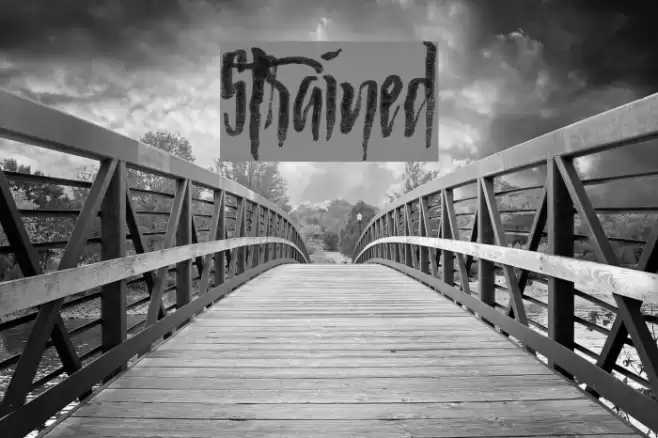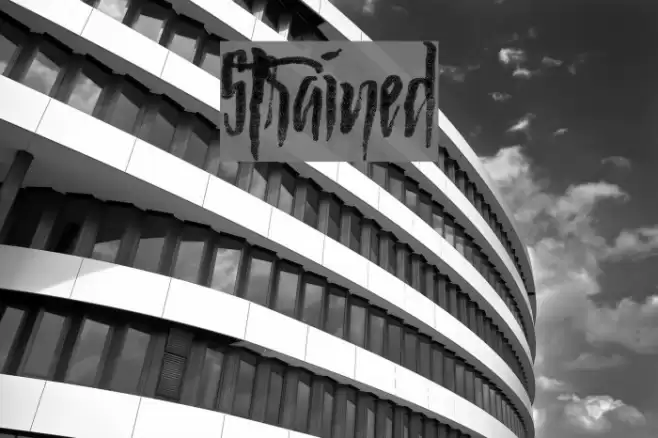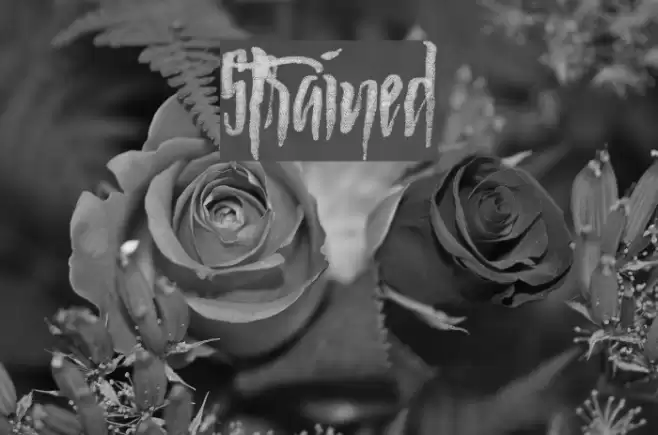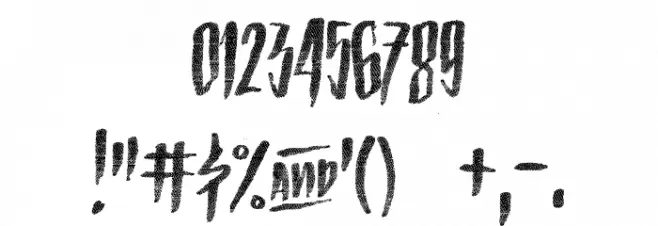
Strained Font
Strained Description
This font features a bold and expressive style with a hand-drawn appearance. The characters are elongated and slightly slanted, giving a dynamic and energetic feel. The strokes are uneven, with a rough texture that adds a gritty, urban vibe. The uppercase letters are tall and narrow, while the lowercase letters maintain a consistent height, creating a cohesive look. The numerals and special characters follow the same stylistic approach, ensuring uniformity across all glyphs. This font is ideal for projects that require a strong, impactful visual presence.
A bold, hand-drawn font with elongated, textured strokes and a dynamic, urban feel from Horror fonts.
- Proposed Projects: Ideal for street art designs, music album covers, edgy branding, and poster headlines.
- Width: Condensed
- Character Spacing: Tight
- Overall Style: Urban, Edgy, Expressive